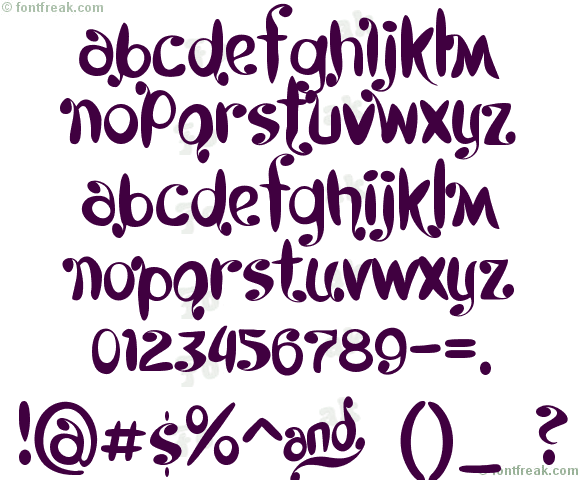
Kyboshed
Kyboshed, designed by Michael Tension in 2010, is a distinctive display font that captures attention with its playful, handwritten style. This font boasts a unique personality, characterized by its irregular stroke weights that create an organic, spontaneous feel. The letters exhibit a charming mix of thick and thin contrasts, contributing to a lively visual rhythm. The spacing is well-balanced, allowing for readability while maintaining an artistic flair, making it an ideal choice for various creative projects.
Kyboshed's versatility shines through in its suitability for a range of applications. It works wonderfully for wedding invitations, where its whimsical style adds a touch of romance and uniqueness. Additionally, this font is perfect for movie posters, providing an eye-catching element that draws viewers in. Restaurant menus can also benefit from its engaging appearance, making dishes feel more inviting and memorable. Content creators will find Kyboshed an excellent choice for social media graphics, as its distinctive look can help stand out in a crowded digital landscape. Graphic designers seeking a fun and engaging font will appreciate Kyboshed’s ability to enhance visual storytelling.